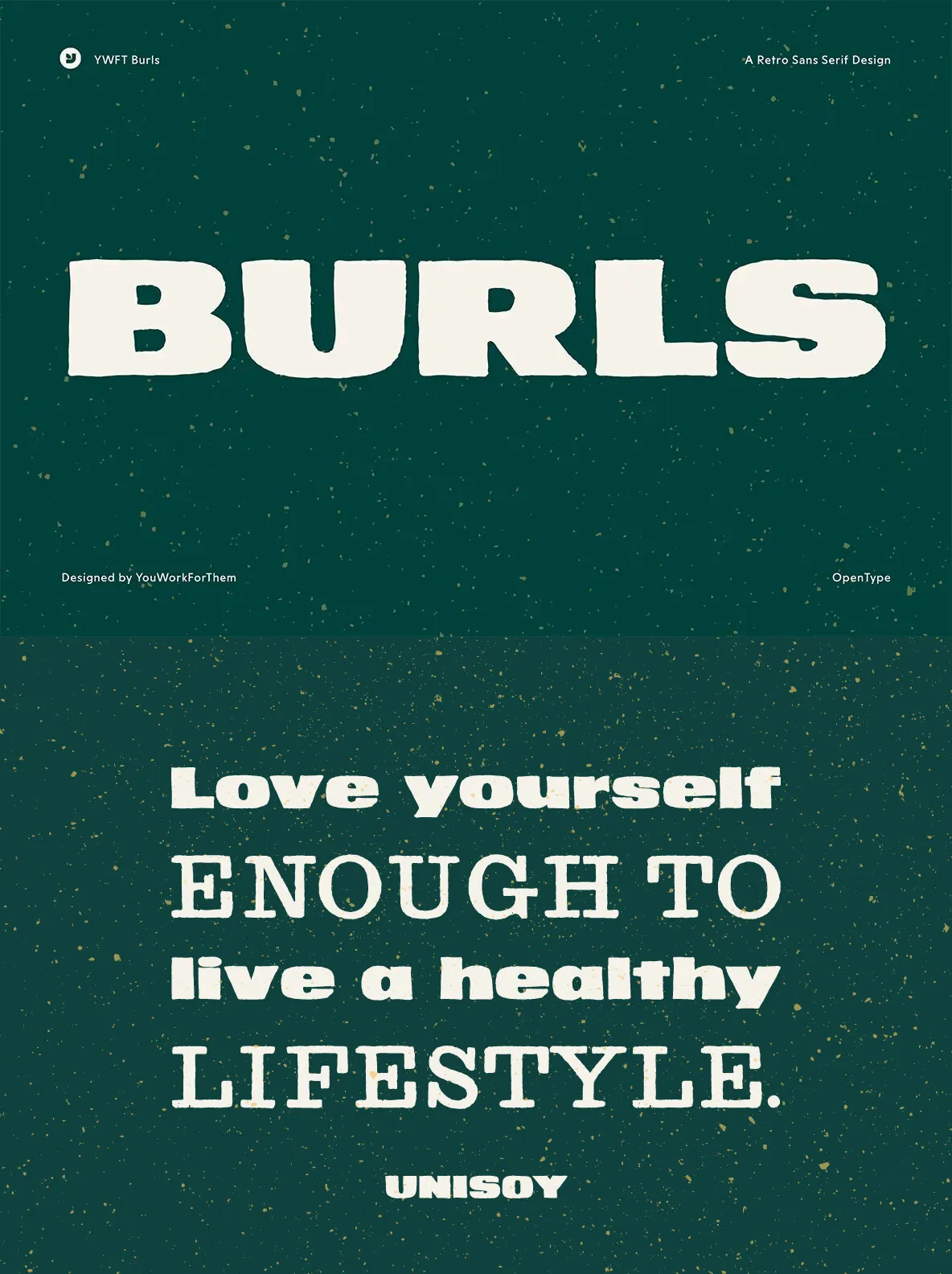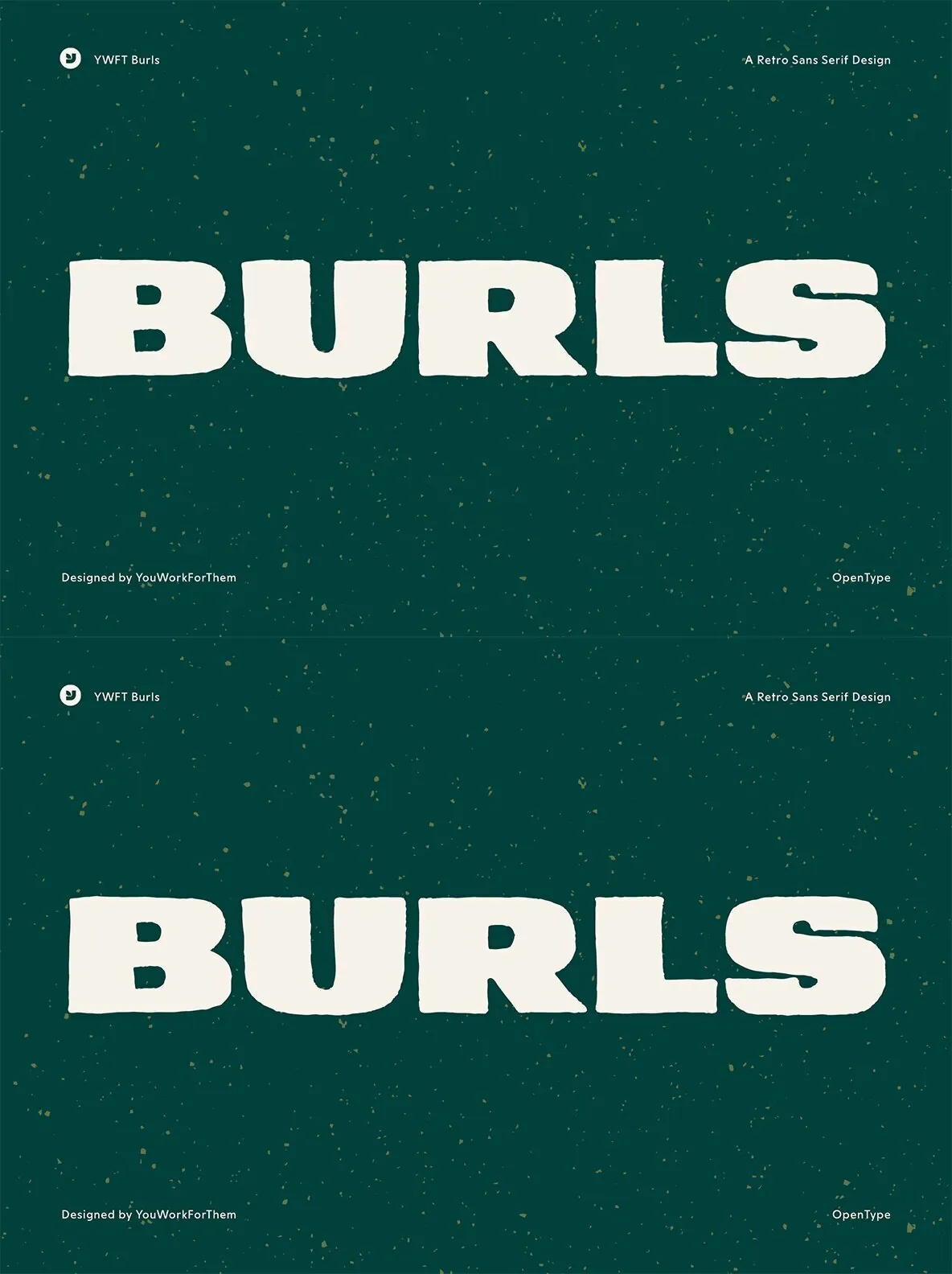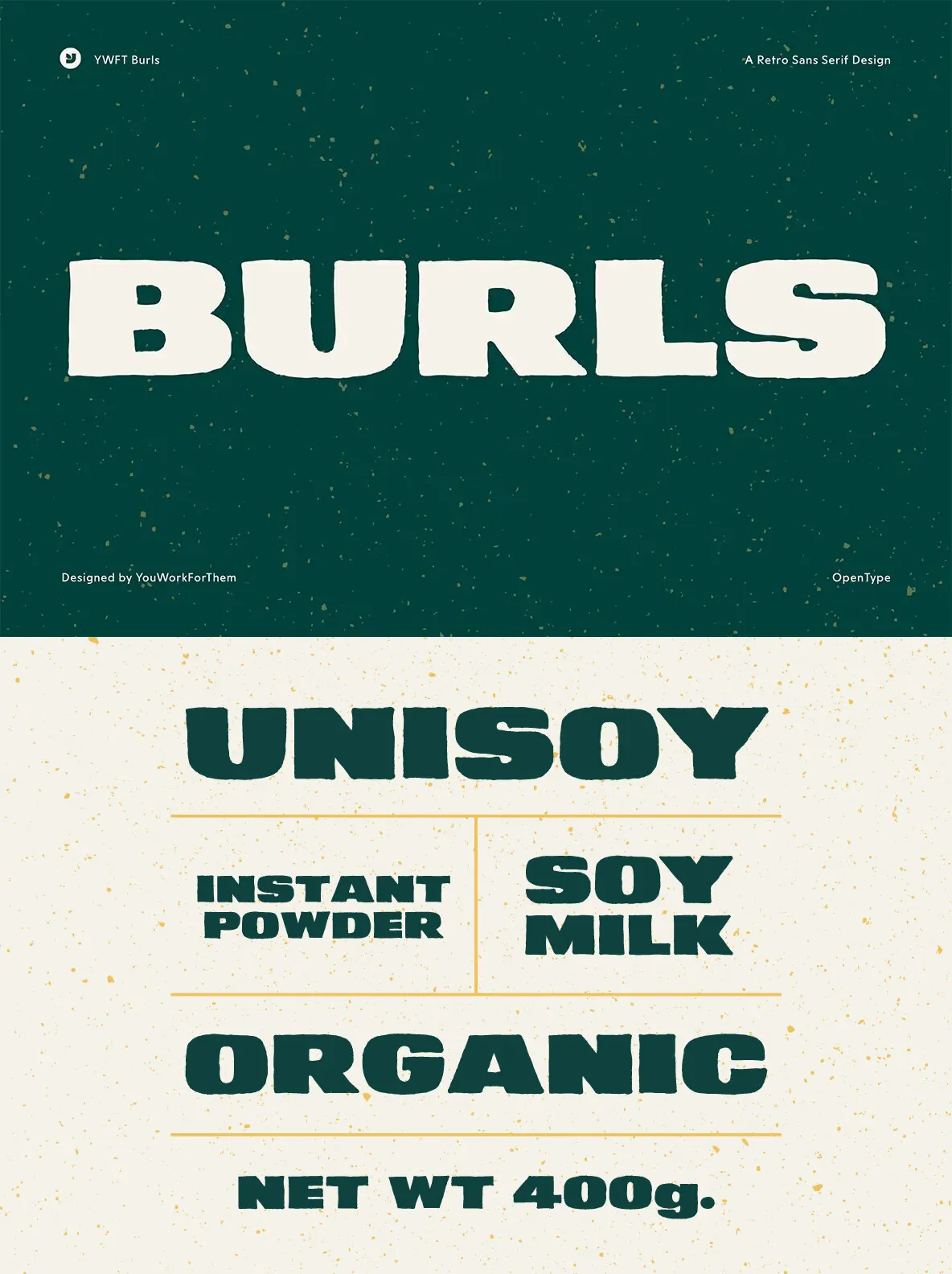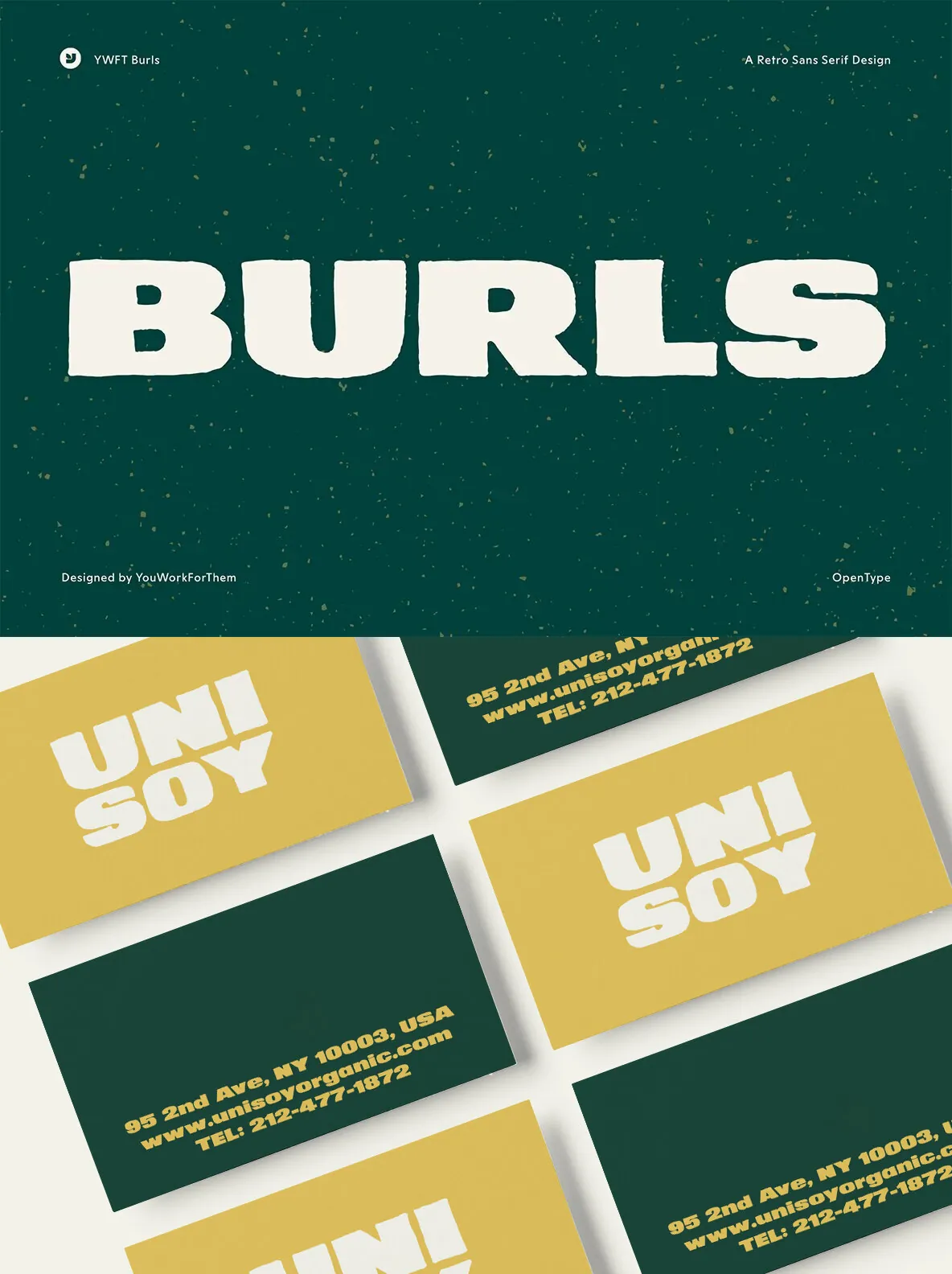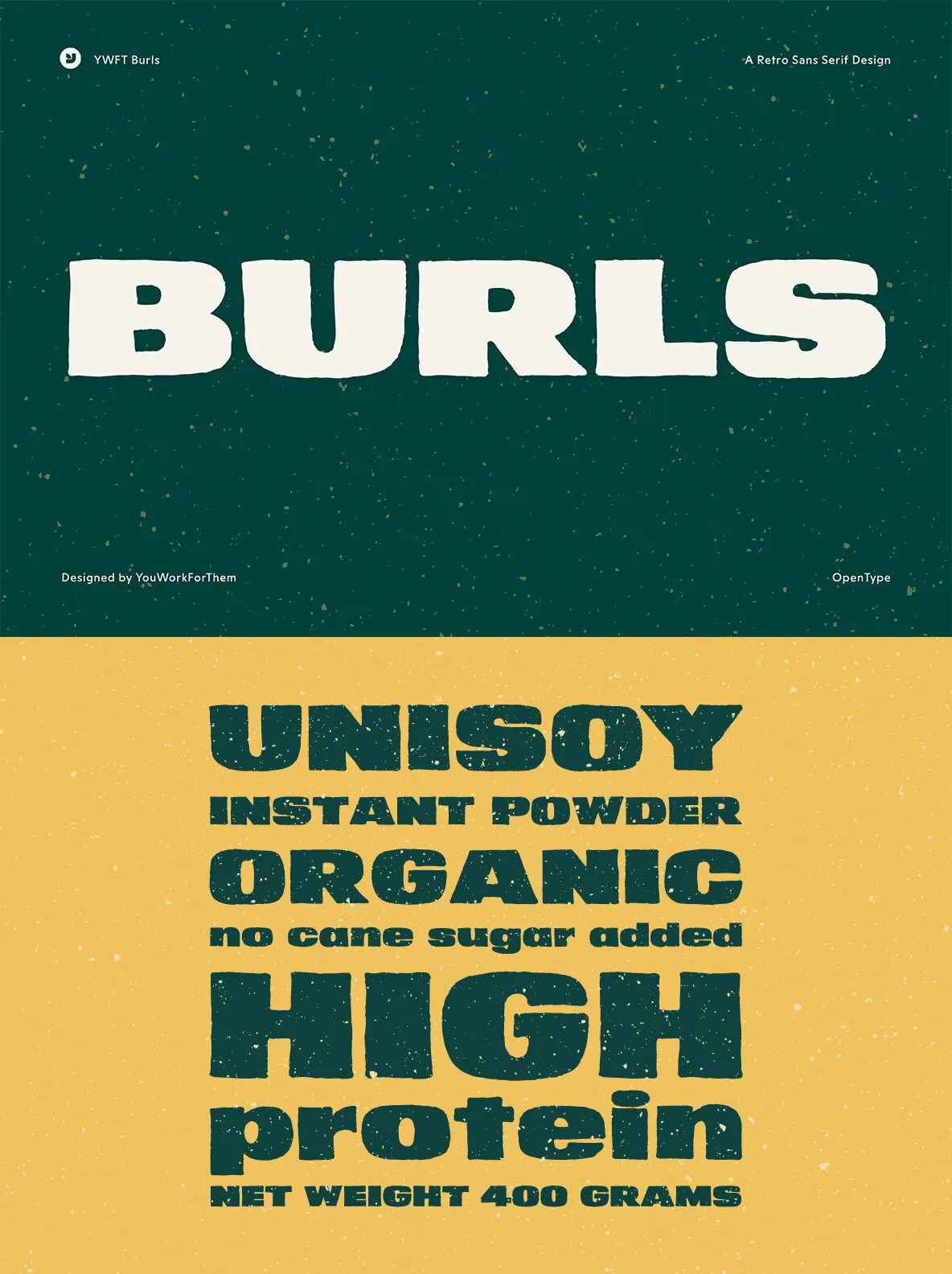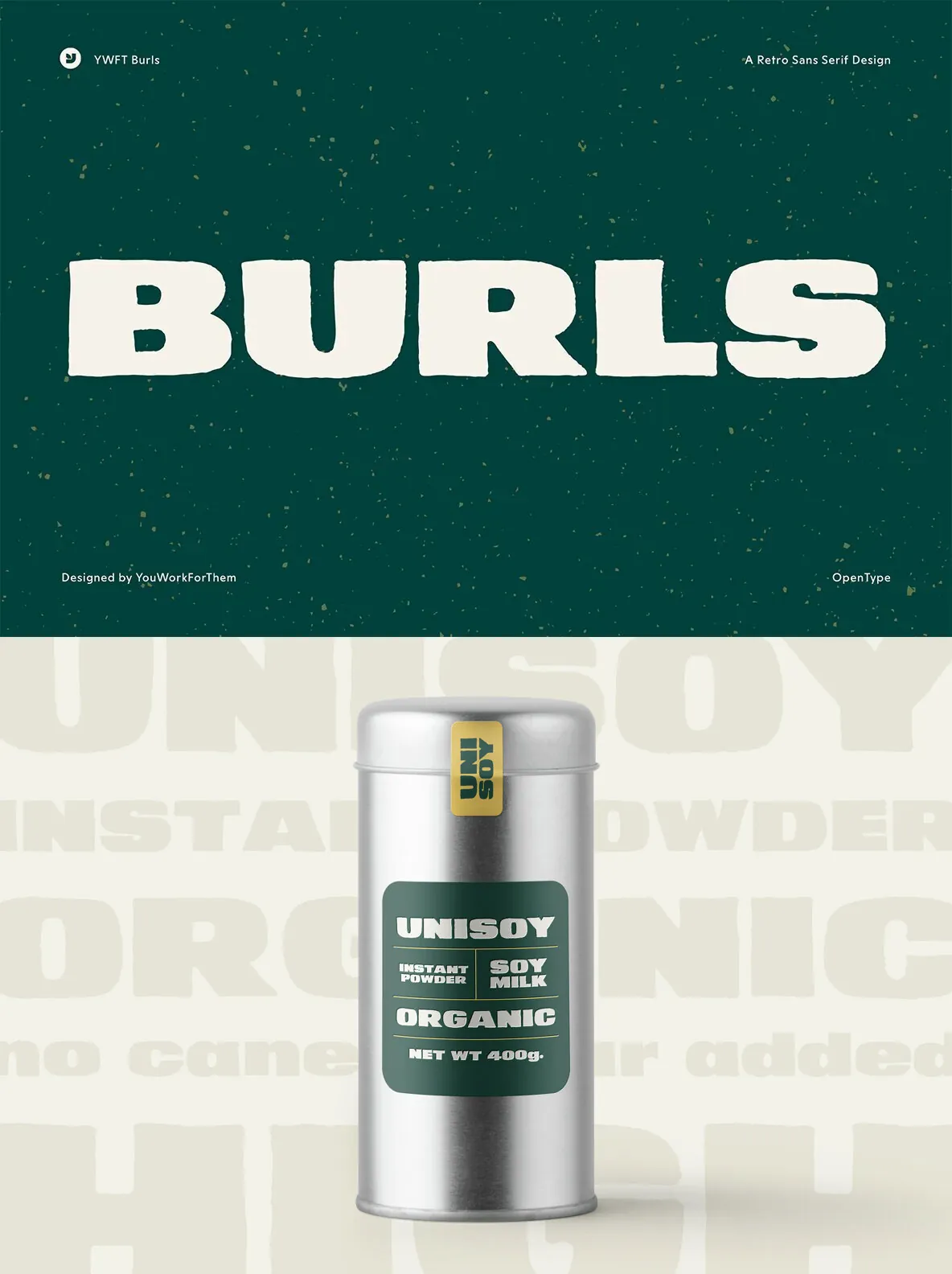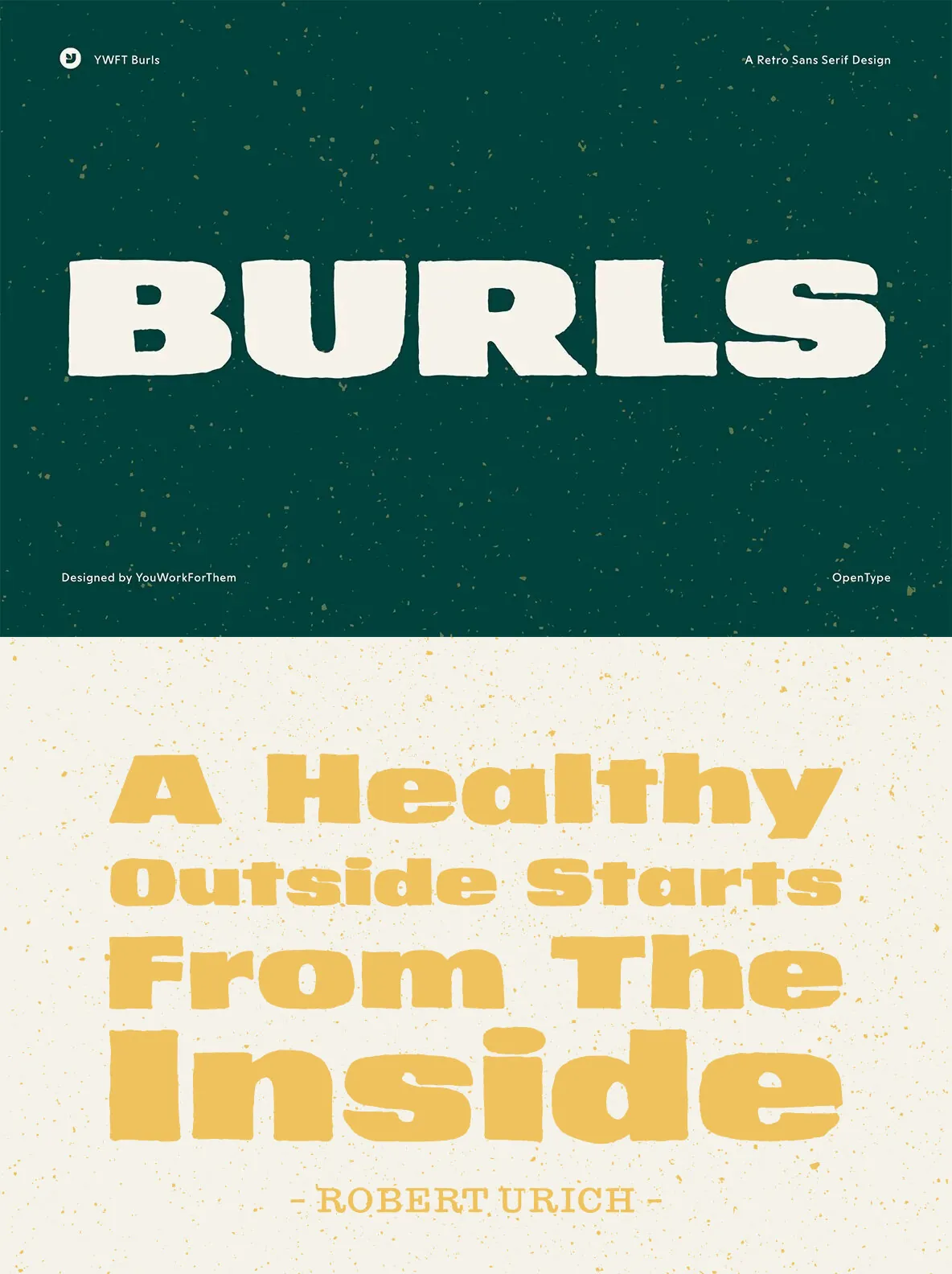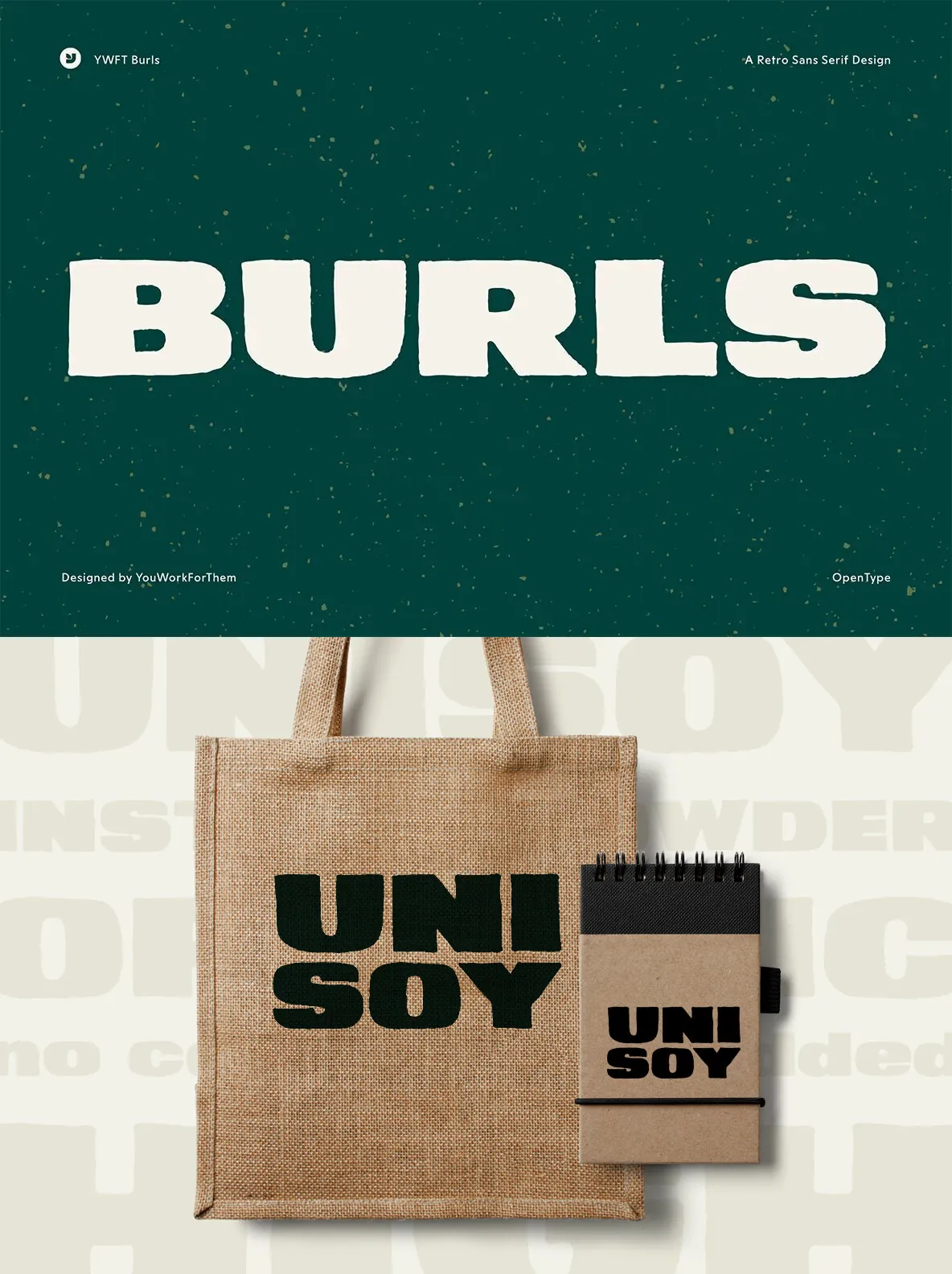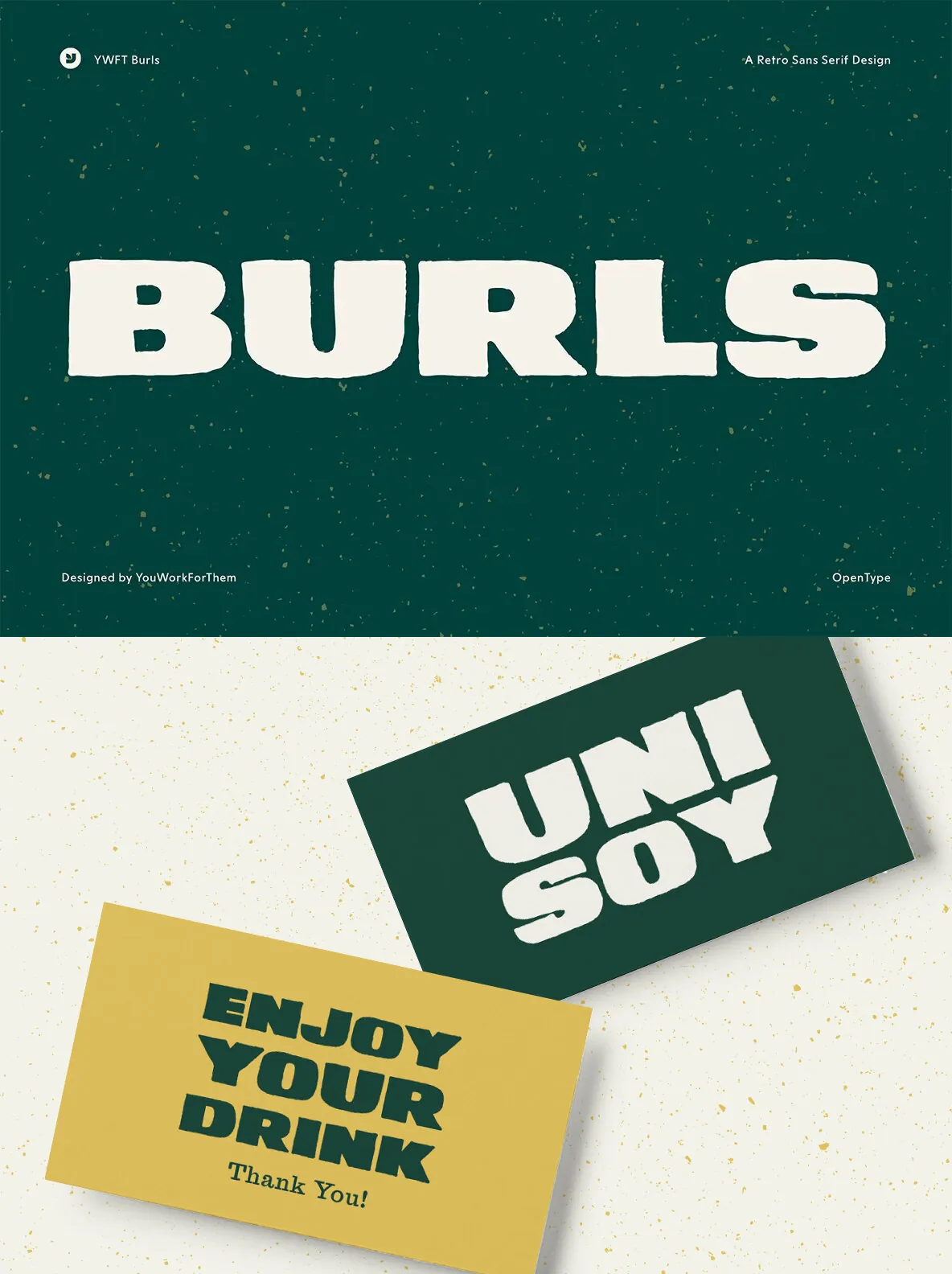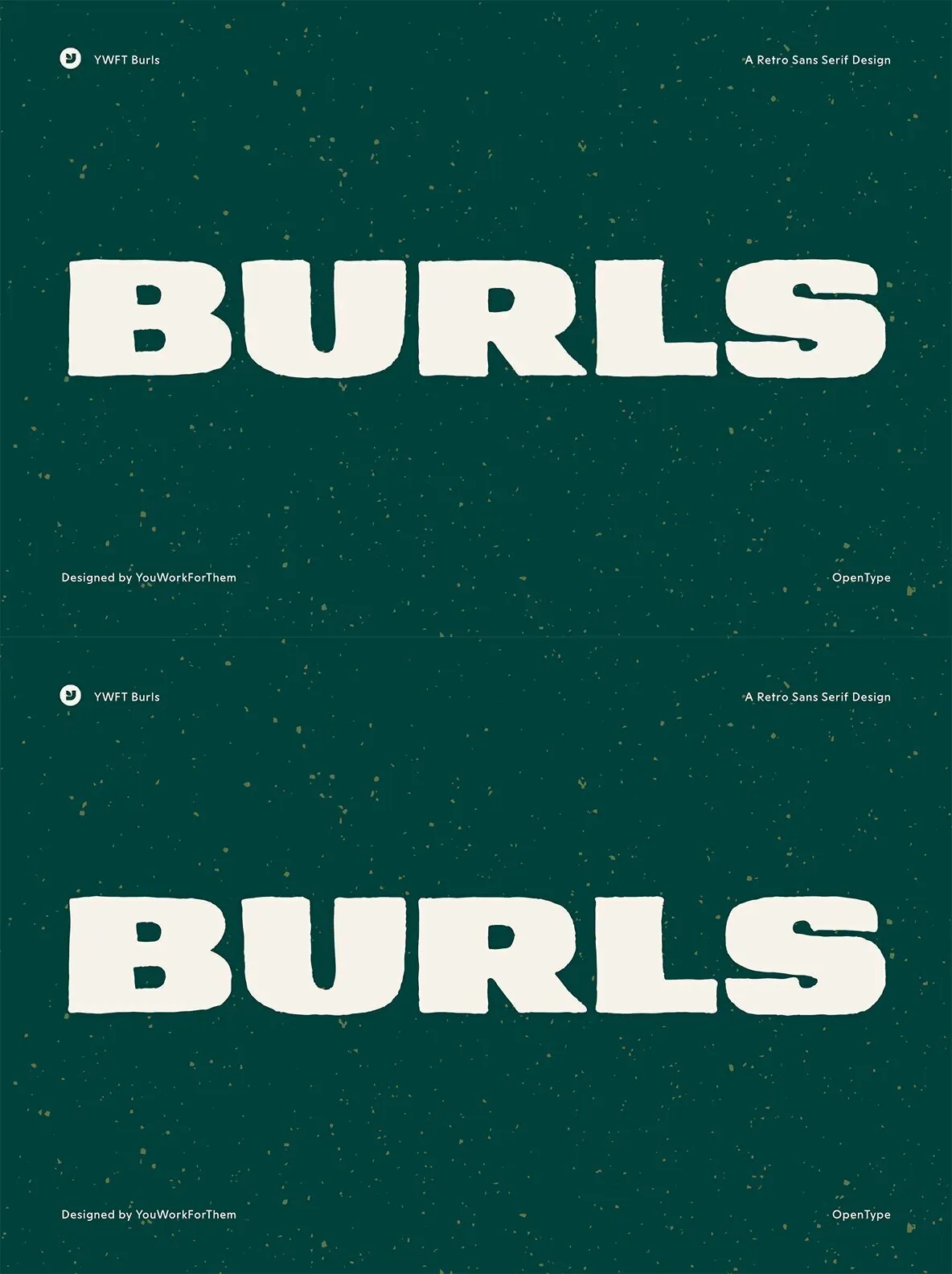
YWFT Burls comes at you like the late-60s Minnesota Vikings defensive line. Burly, thick, massive, manly, and tough with retro thickness and fifty pounds of lard-enriched meat sauce. Pour out a tall single-malt straight up, and order up a Kansas City rib-eye still mooing, because YWFT Burls just walked in, and he’s hungry as hell. Straight OpenType in the glass, no extra jazz, no frilly undies, just 230 mean Glyphs of powerful retro attitude. Designed by YouWorkForThem.
YWFT Burls is based on the original handset design Fridge, which is included for